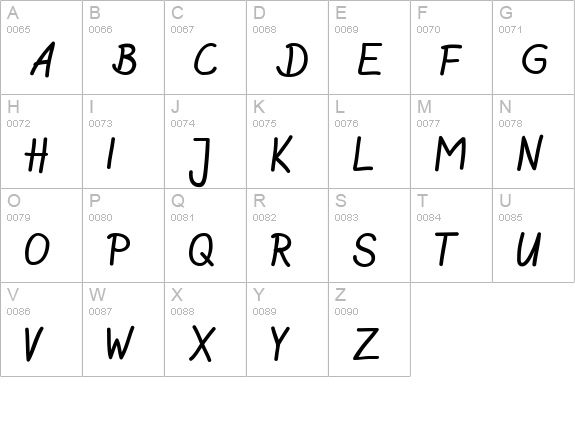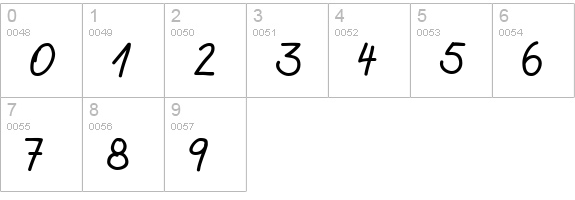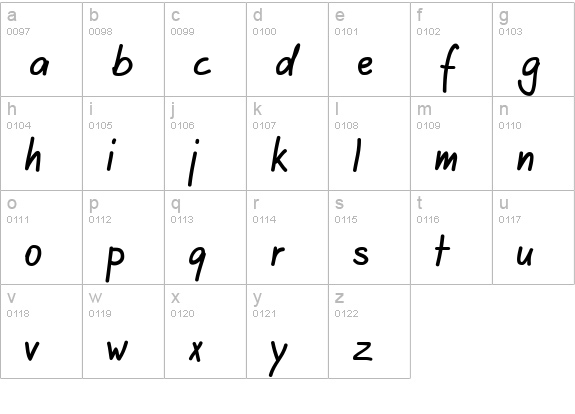
Agilo Handwriting font is a charming and versatile typeface that exudes elegance and personality. With its smooth curves and flowing strokes, this font is perfect for adding a touch of sophistication to your projects. Whether you're designing invitations, branding materials, or social media graphics, Agilo Handwriting will bring a unique and artistic flair to your work. What's even better is that Agilo Handwriting font is completely free! Yes, you read that right – you can download this stunning font for free at FontsMarket.com. So, don't wait any longer to elevate your designs with the beauty of Agilo Handwriting. Download it now and let your creativity shine!